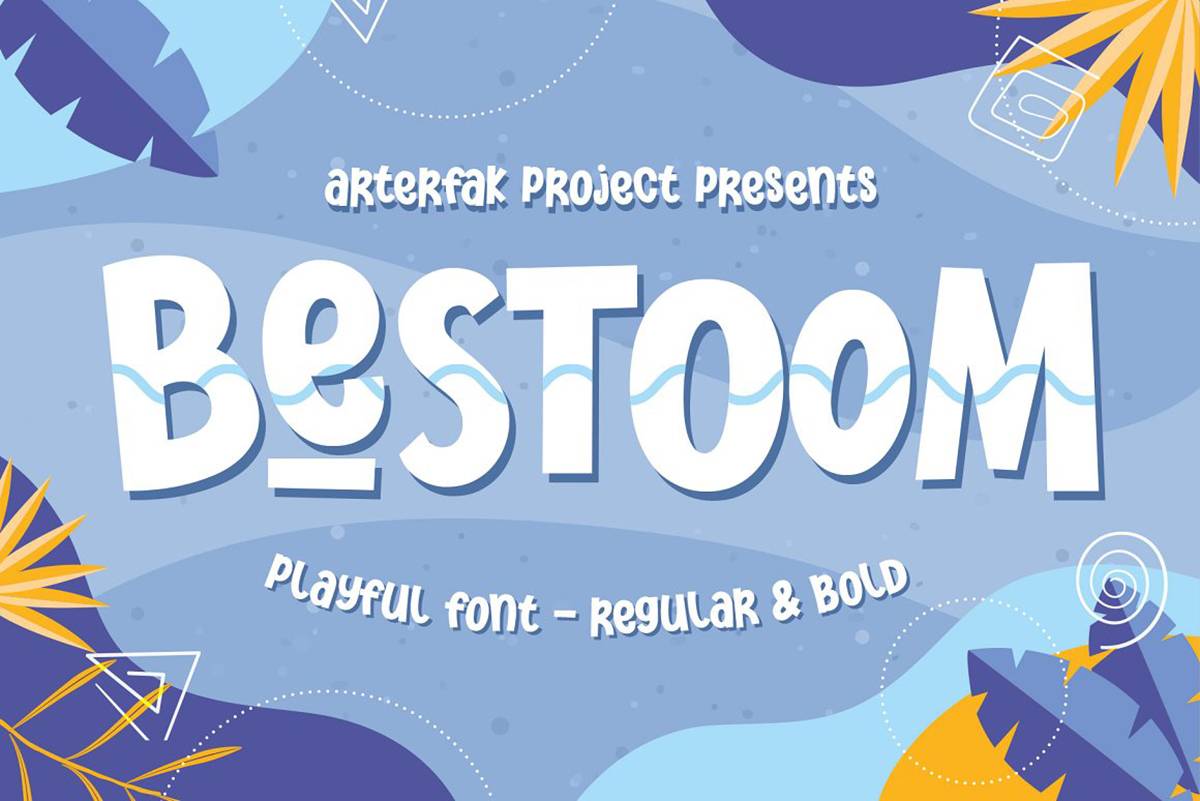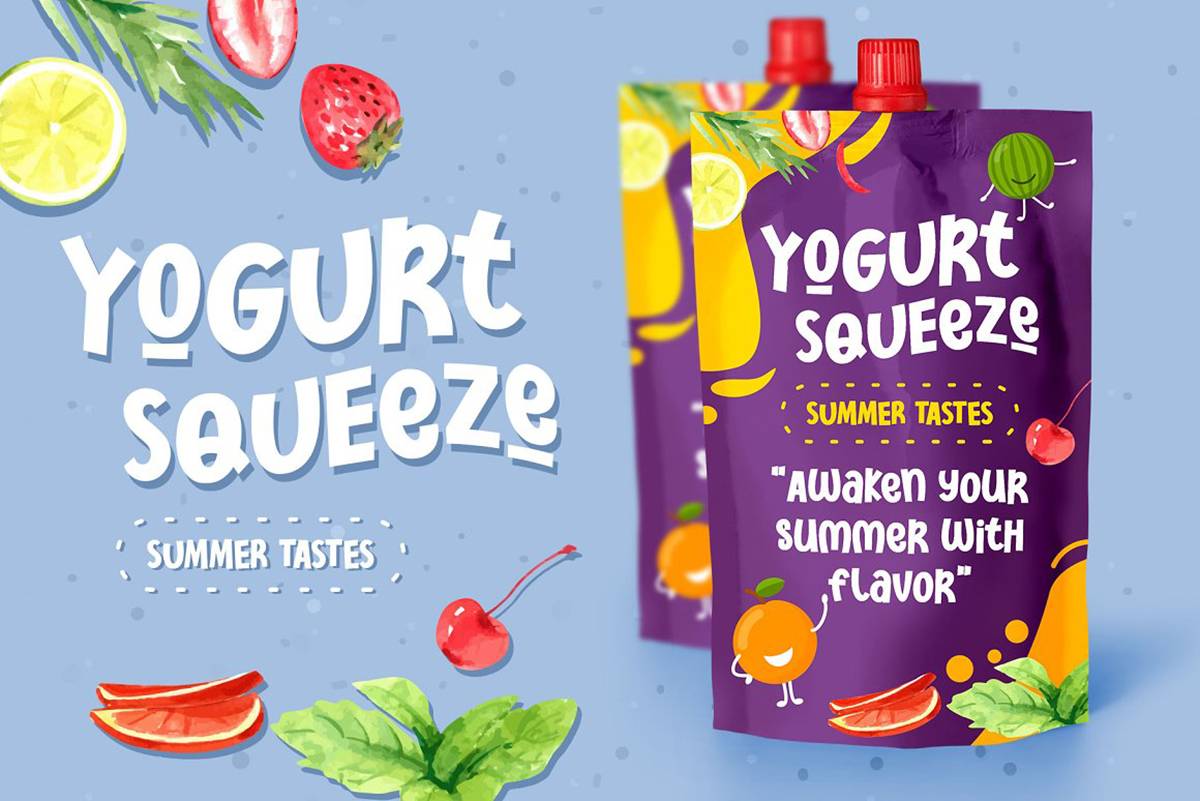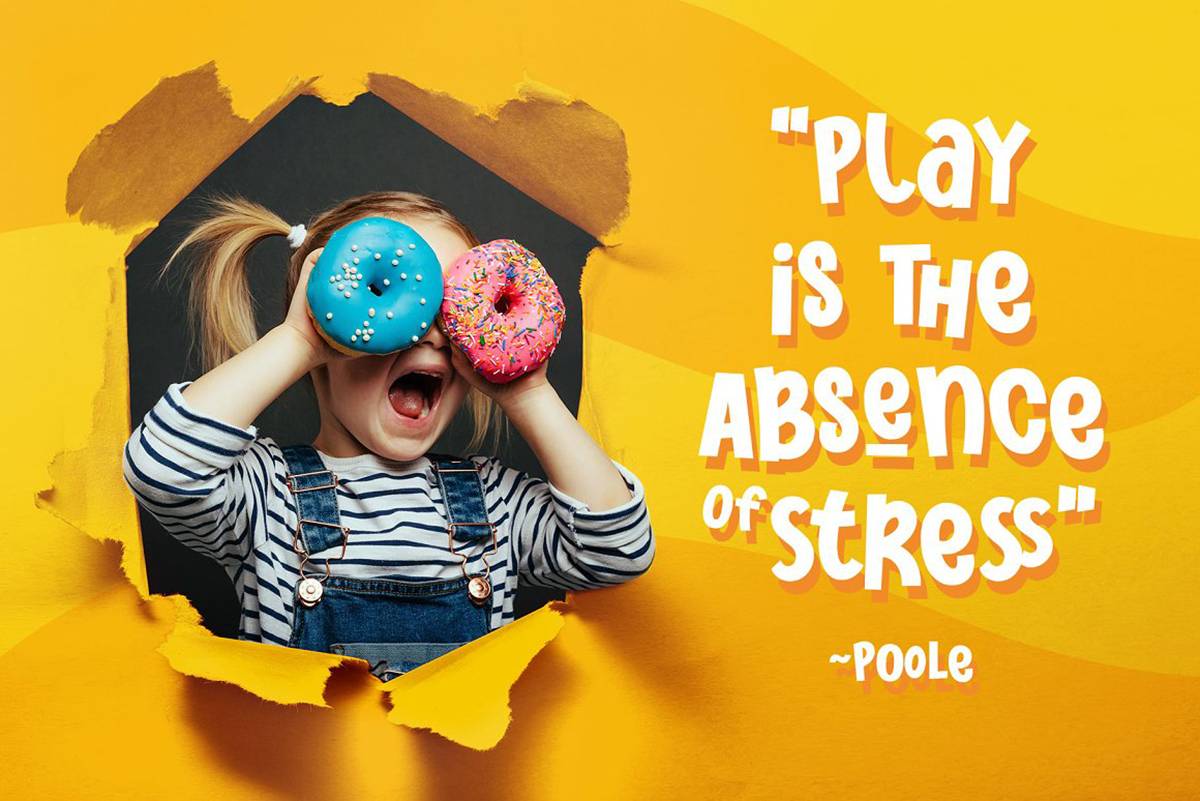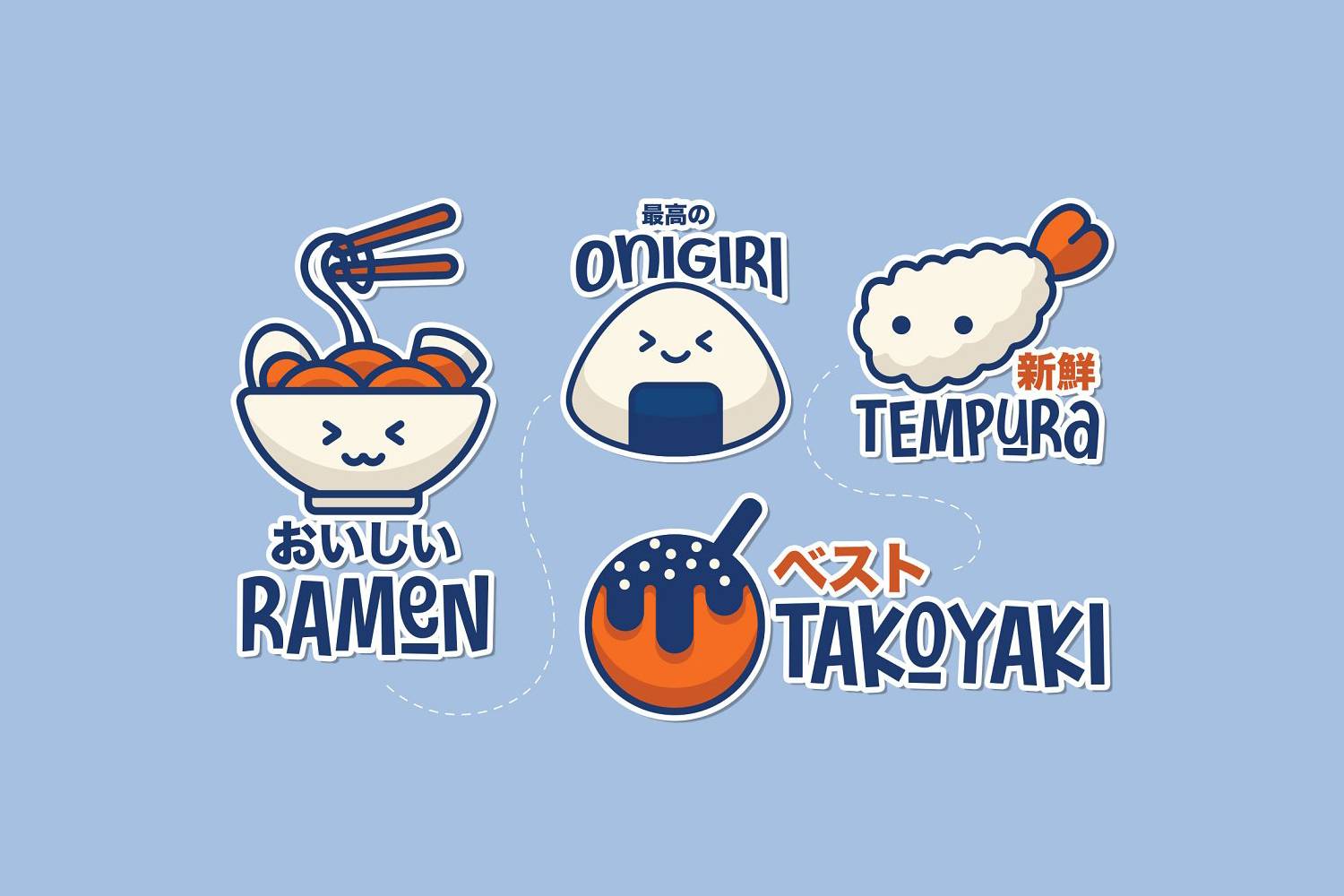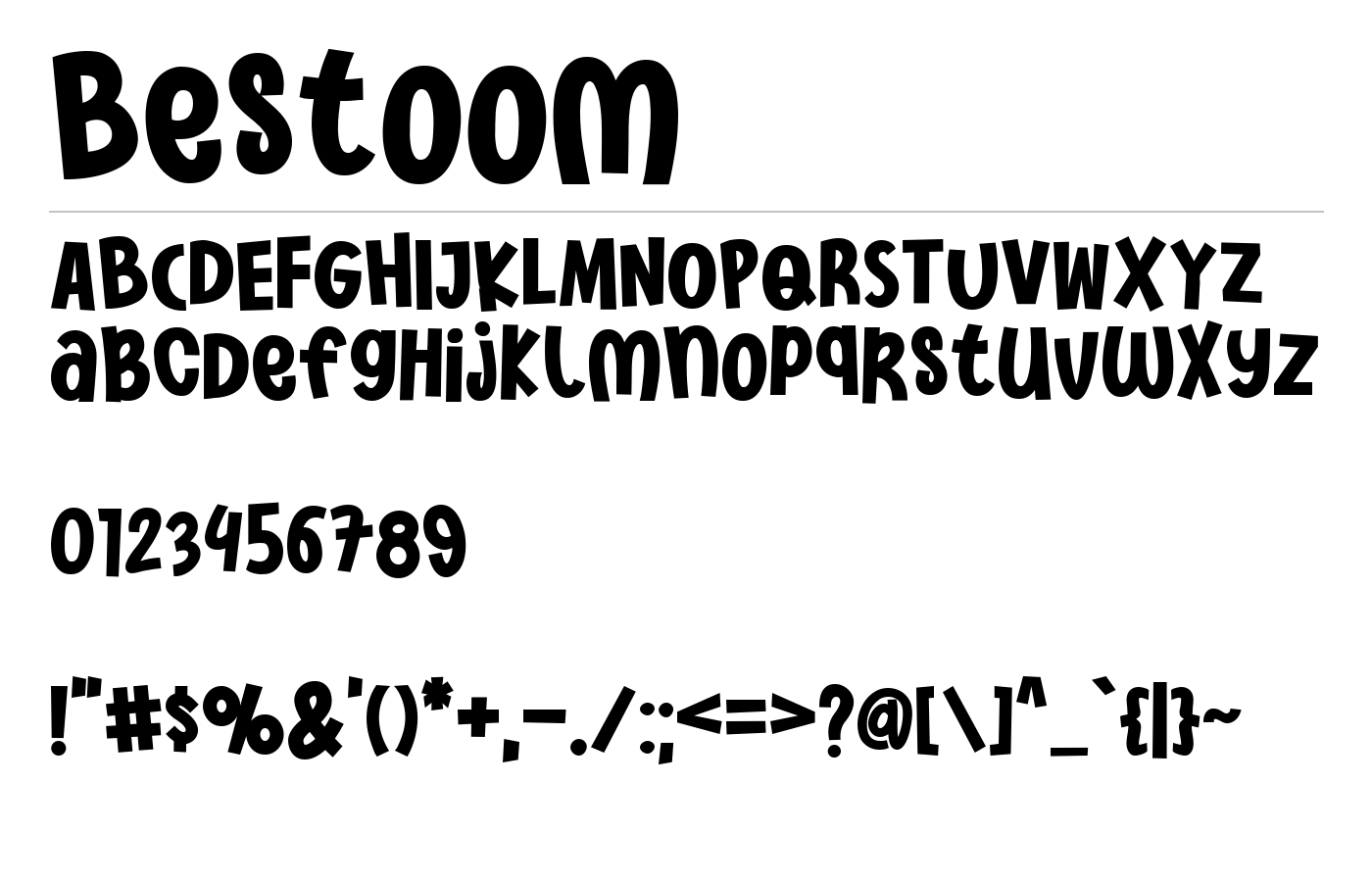
Bestoom is a playful, bold sans serif font with a quirky, hand-drawn feel that adds charm and personality to any design. Its irregular letter shapes, lively curves, and strong presence make it perfect for fun, informal projects like children's books, posters, and creative branding. This font works best where a cheerful, approachable vibe is needed to captivate and engage audiences.
Bestoom Font
About Bestoom Font
| Font family | Bestoom Font |